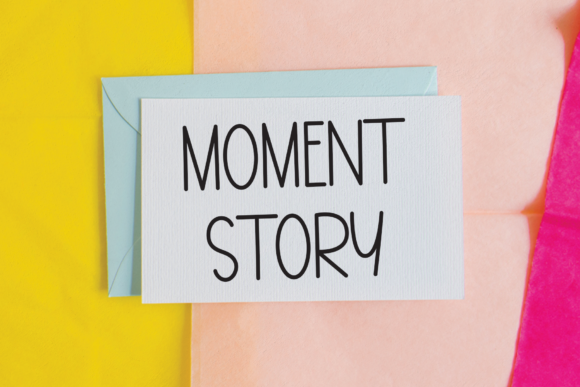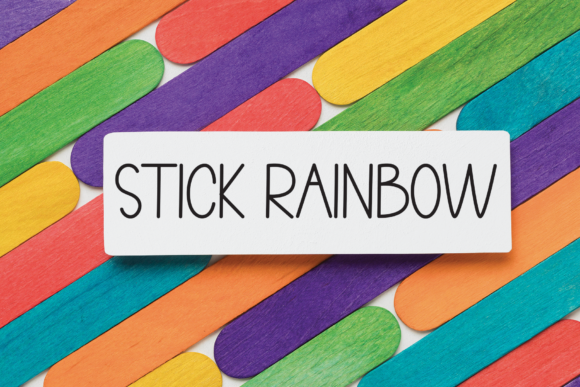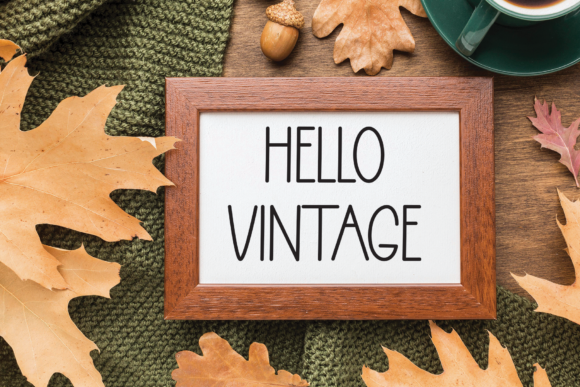
Introduction to Flower Blosom Font
Flower Blosom is a sweet and simple handwritten font.
This soft font will look great on any design idea and it will add a neat and delicate touch to any of your projects .